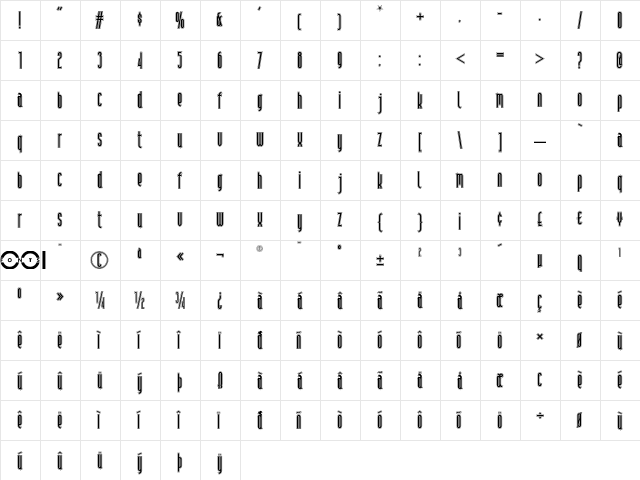
Andiron Outline NF Regular
Design Context for Andiron Outline NF Typeface
Andiron Outline NF brings ornamental detail and strong personality to headlines and identities, where visual impact matters more than quiet functionality.
Font Pairing: Pair with a clean neutral sans-serif for body copy to let Andiron Outline NF's character lead without overwhelming the composition.
Pro Tip: Use Andiron Outline NF exclusively at display sizes — it was designed to be seen, not read at length. Let a neutral companion handle body copy.